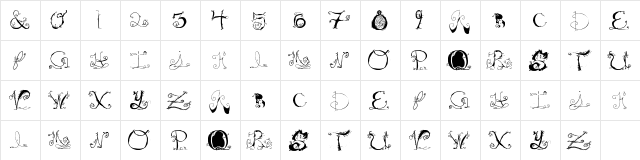
Teenage Fantasy Romance Novel Regular
Design Context for Teenage Fantasy Romance Novel Typeface
Teenage Fantasy Romance Novel is a composed and adaptable typeface that performs quietly and consistently across a wide range of design contexts.